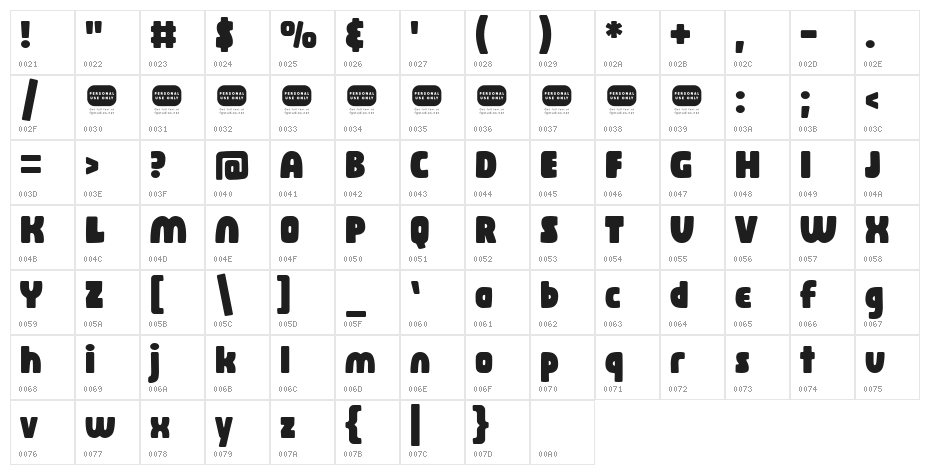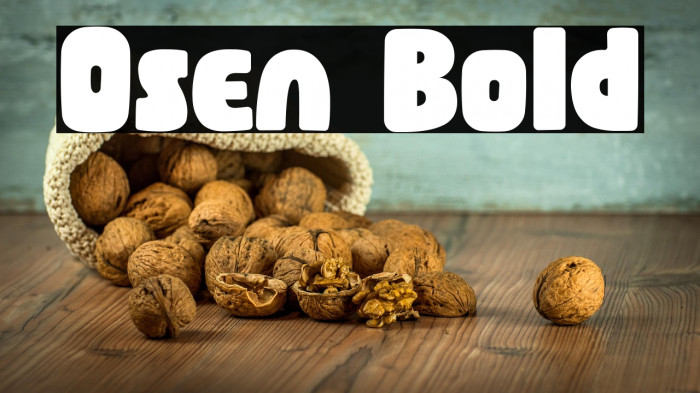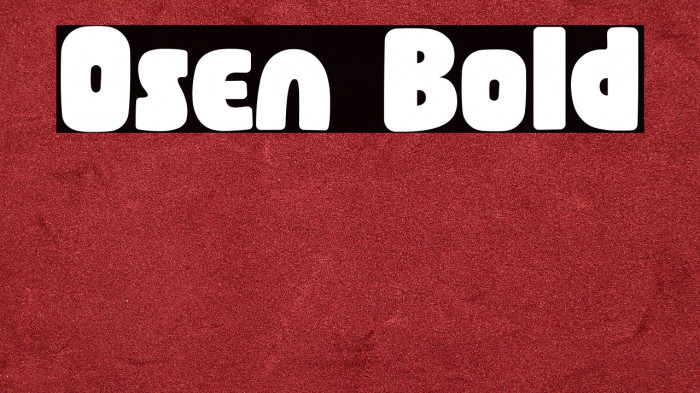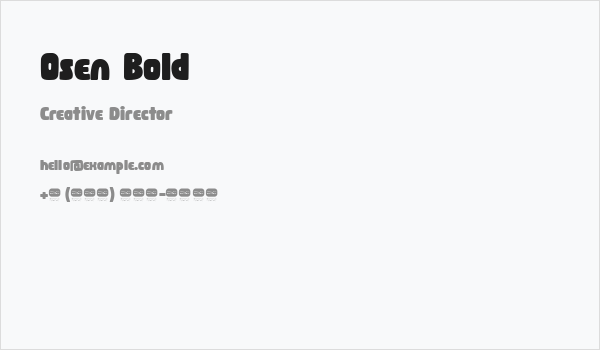
Osen Bold Font
| Stile generale | Playful, Friendly, Bold |
| Progetti proposti | Ideal for children's books, playful branding, posters, and social media graphics. |